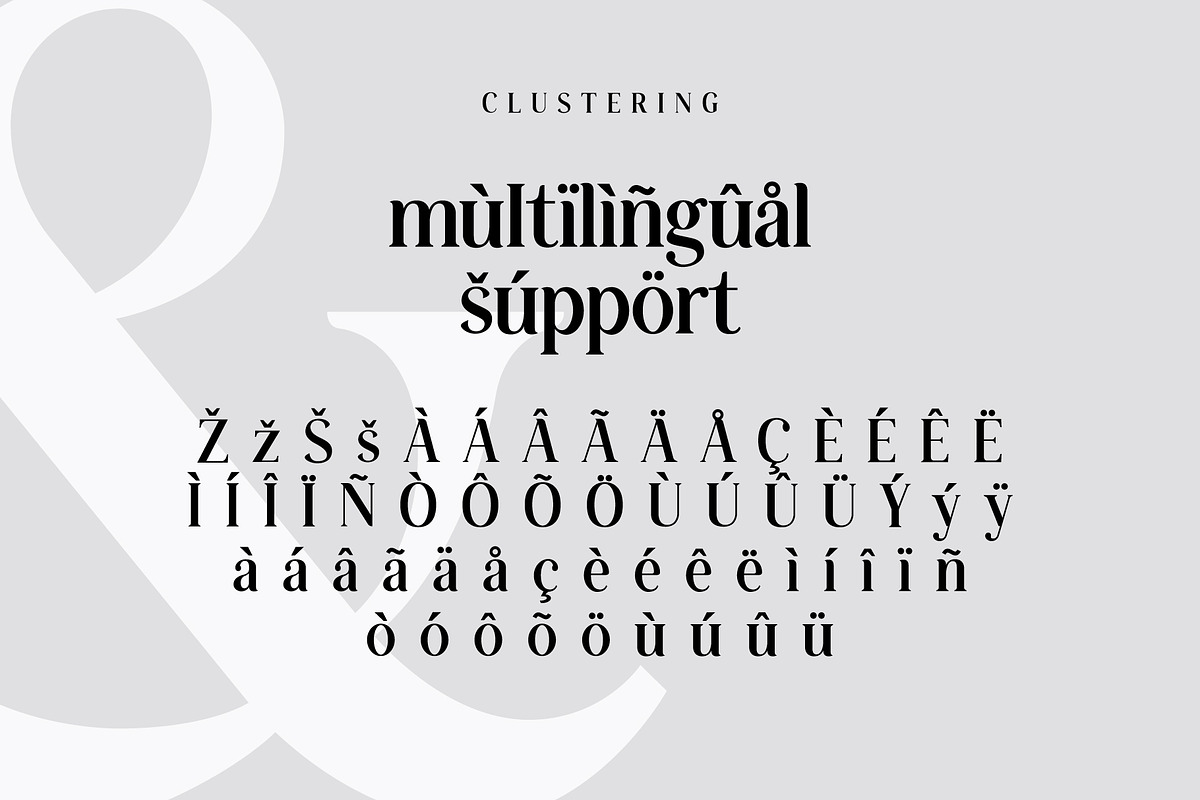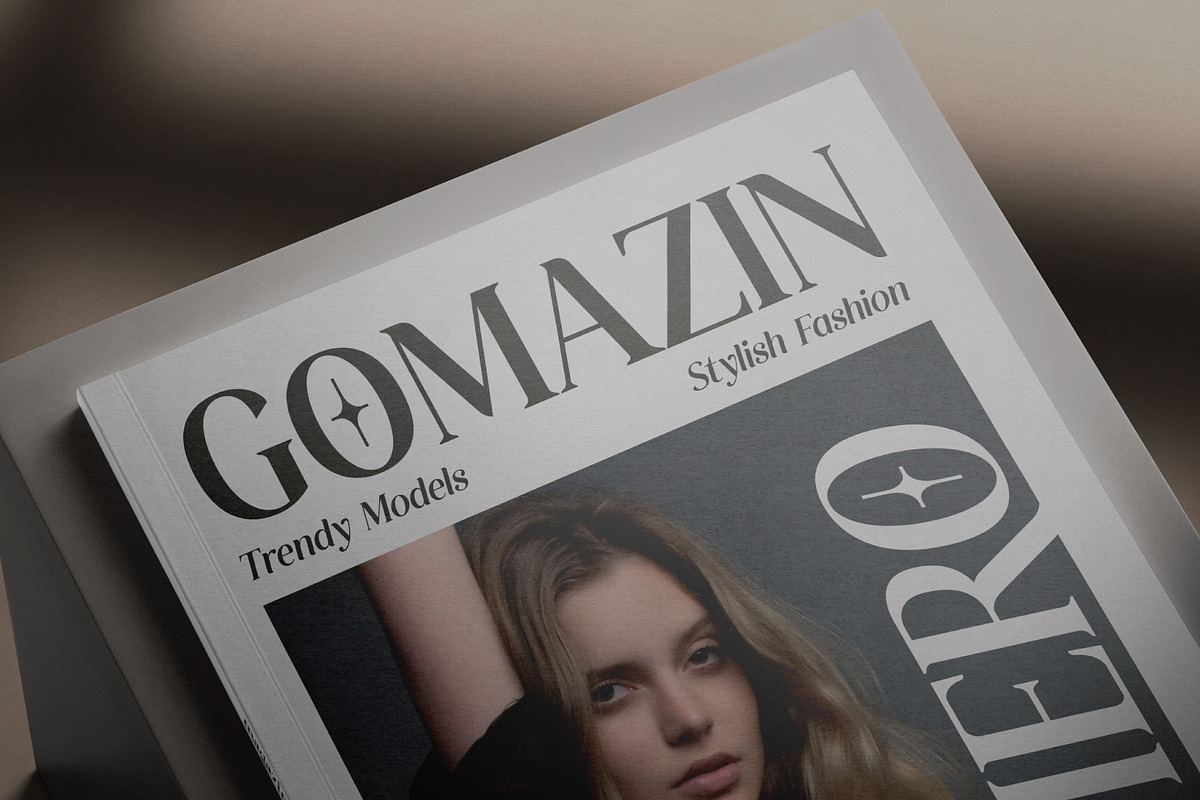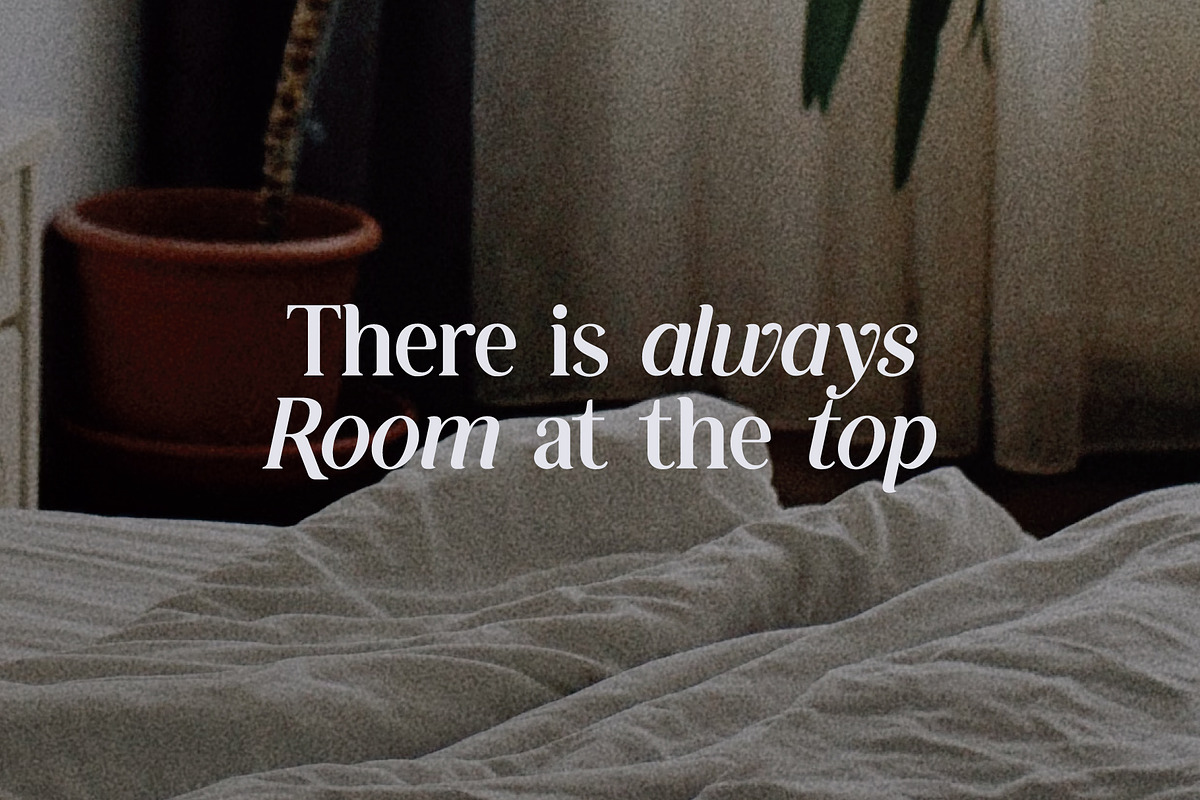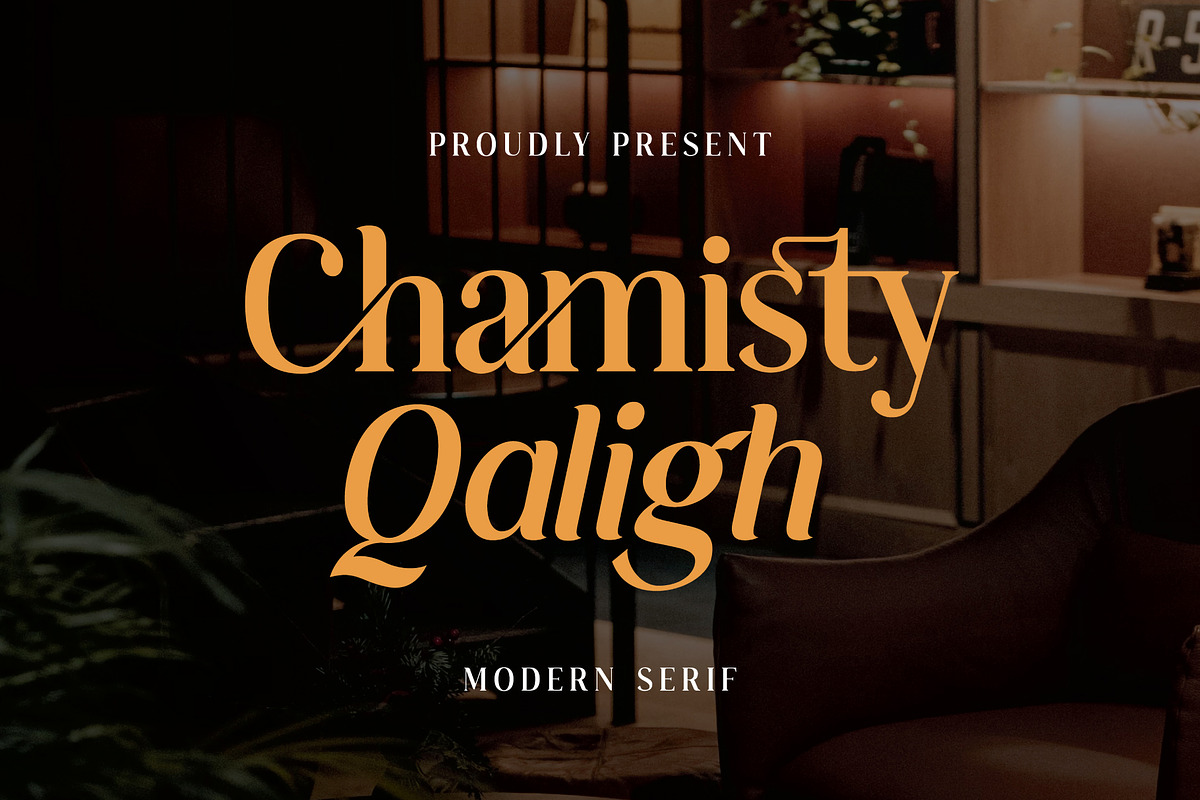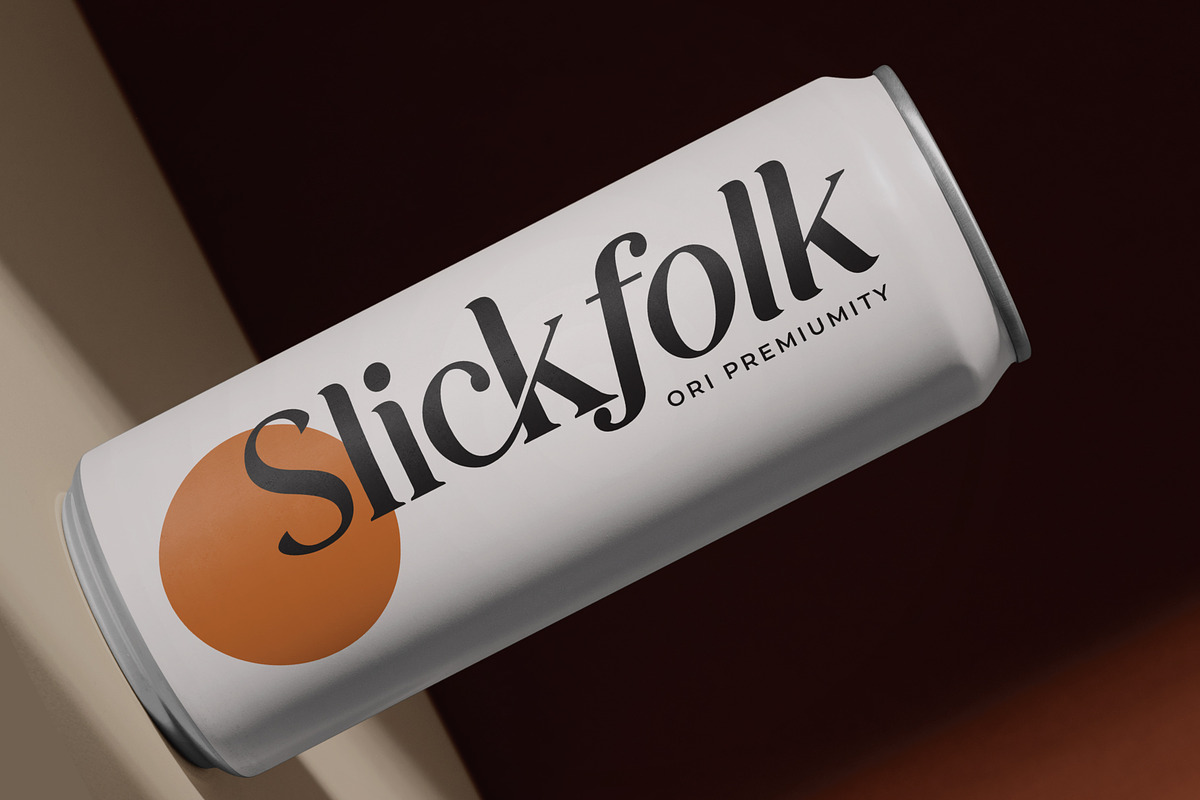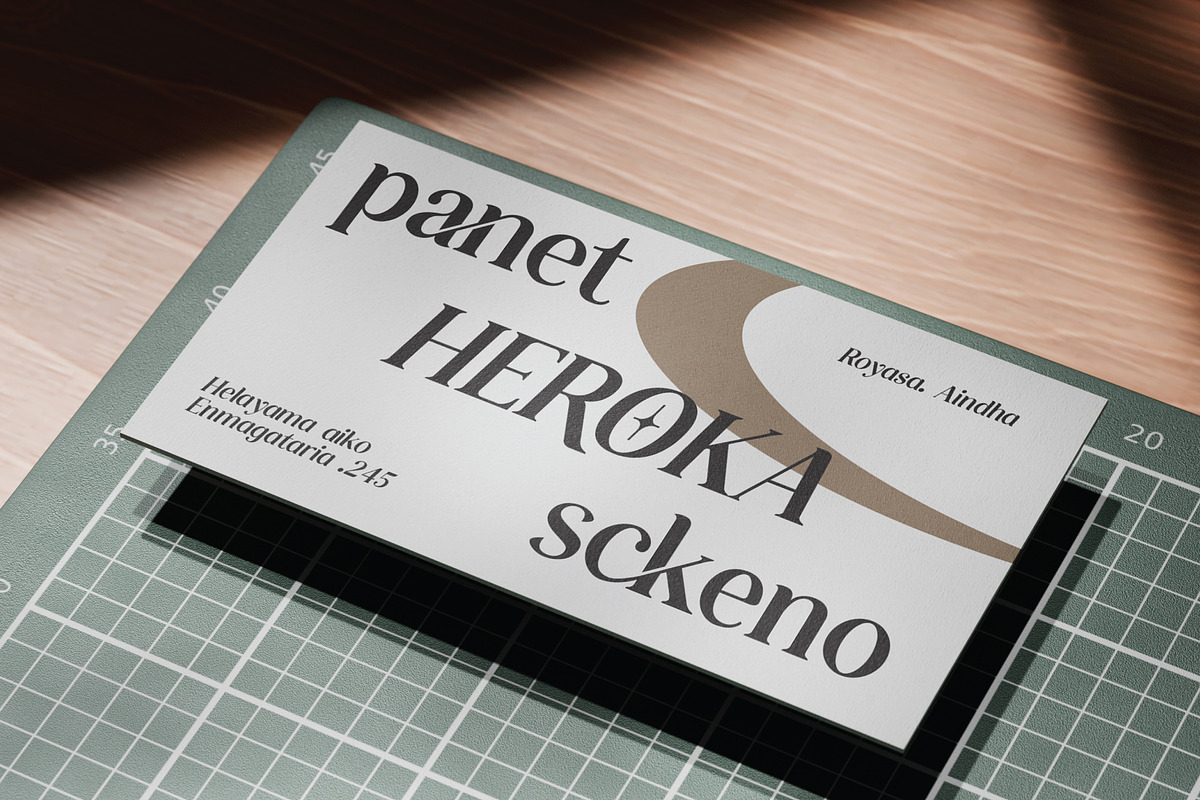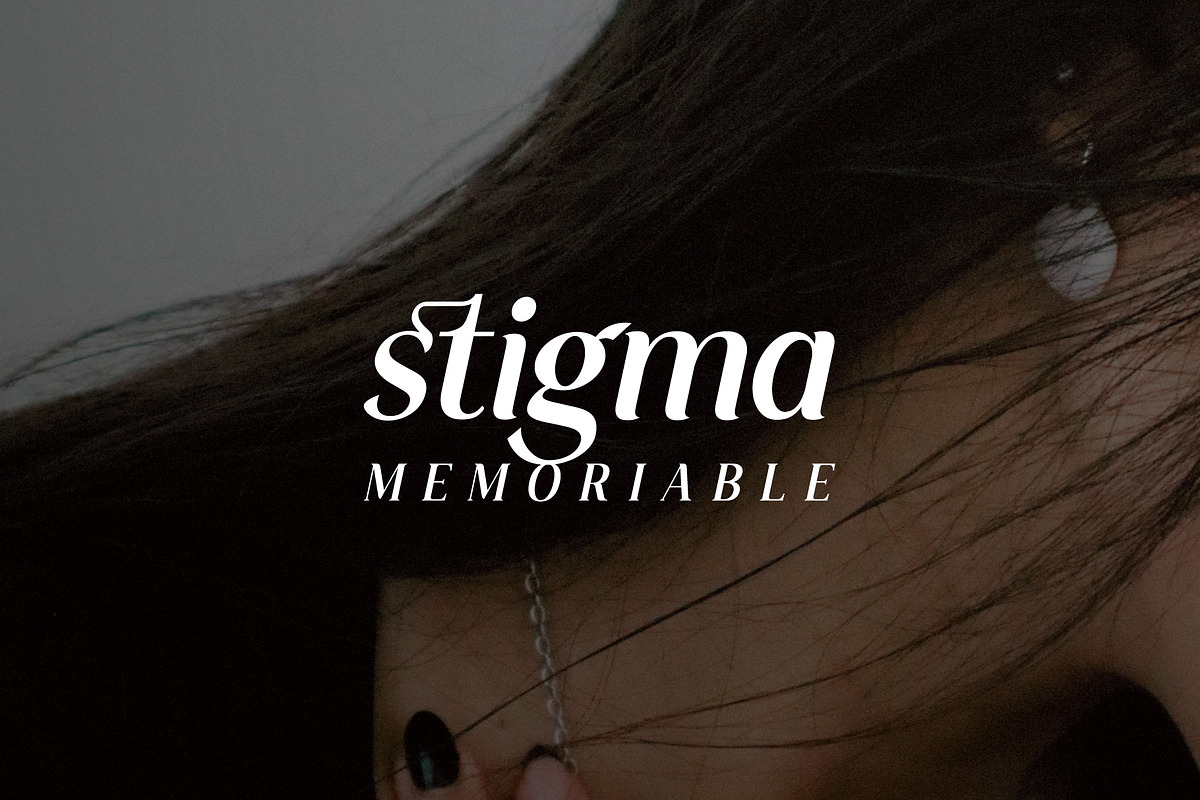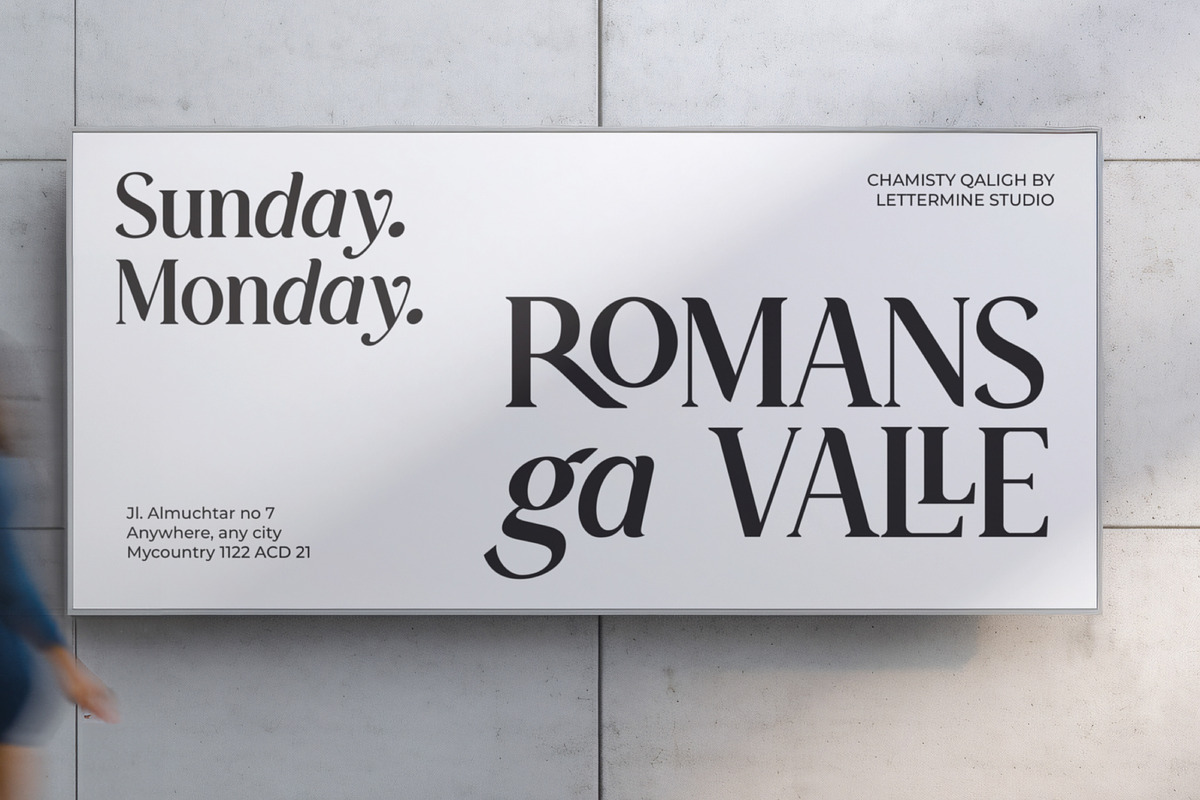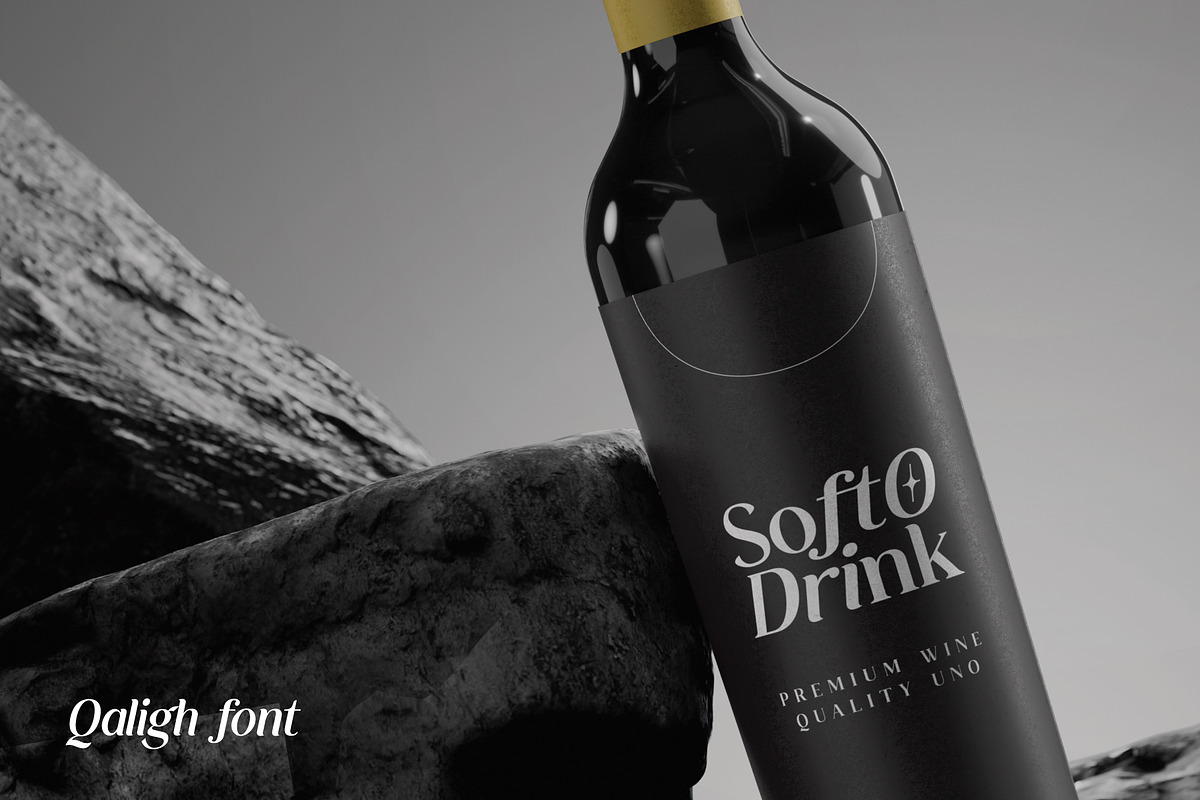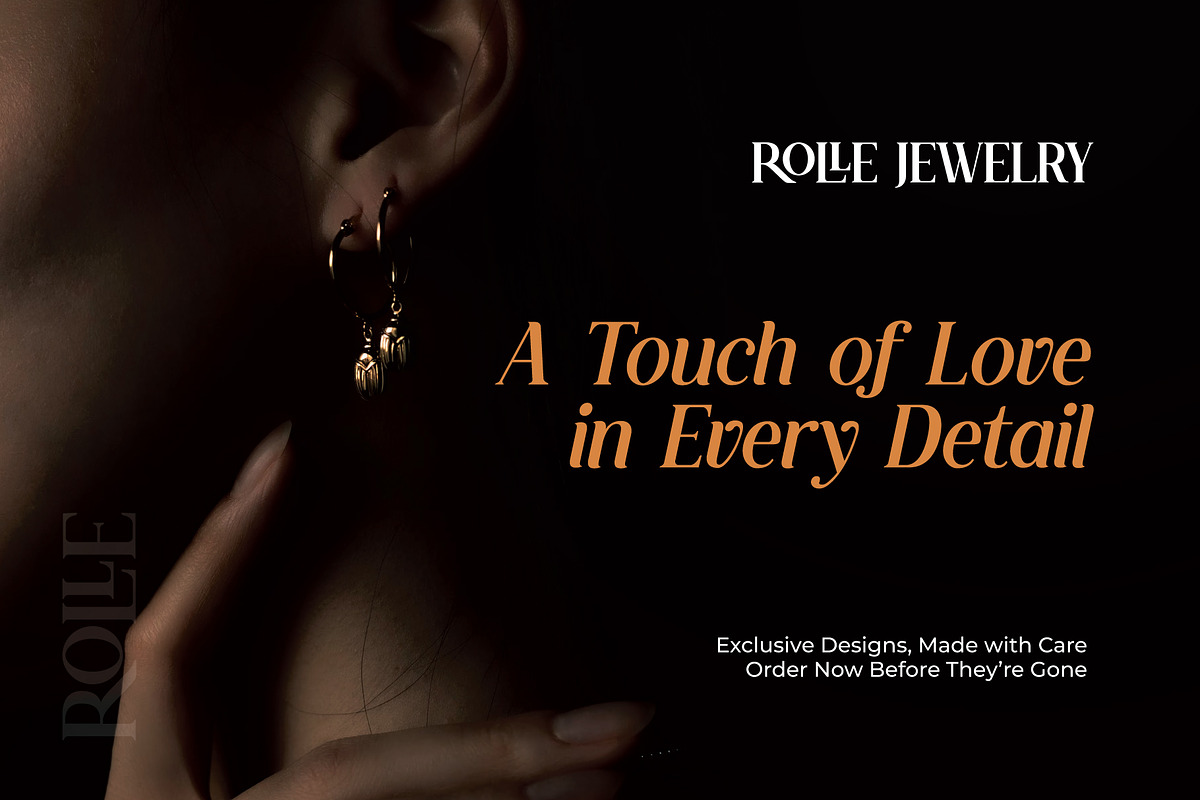
Chamisty Qaligh - Modern Serif
Chamisty Qaligh – Modern Serif
Chamisty Qaligh is a modern serif font. Each letter is crafted with fine details and graceful curves, offering a perfect balance between classic elegance and contemporary style. Ideal for branding, editorial designs, and stylish headlines, Chamisty Qaligh brings a professional touch to every project.
Ligature
Alternative